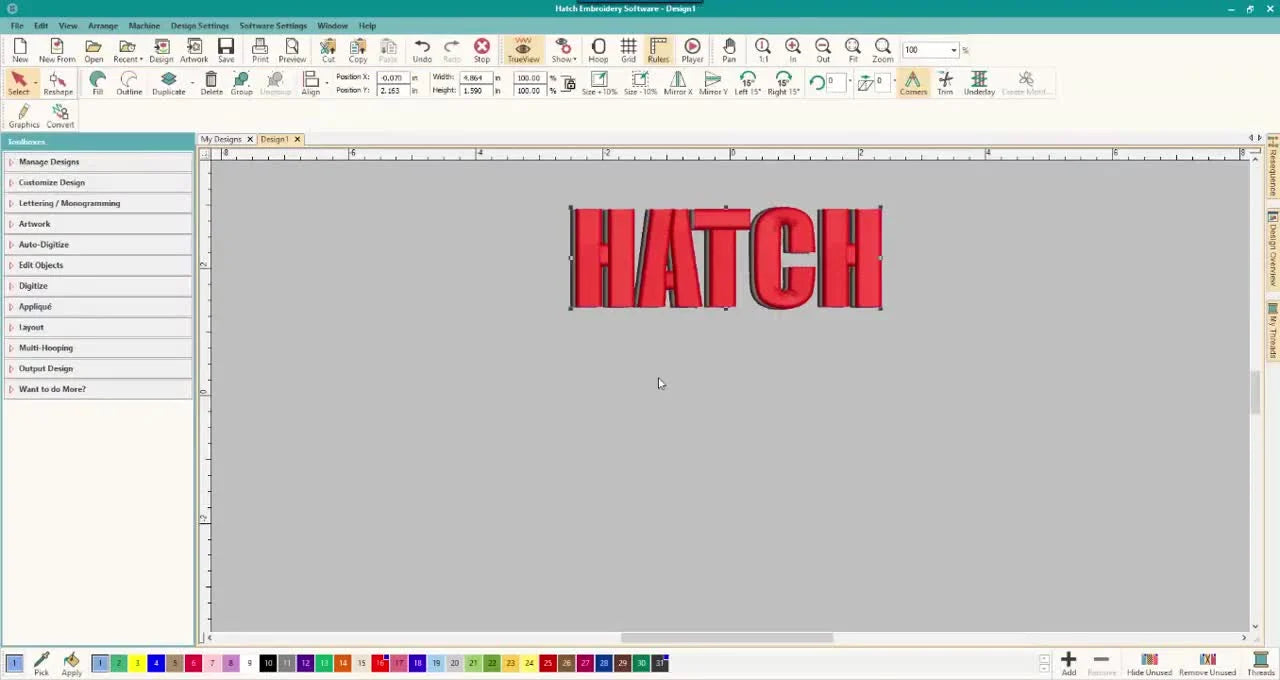
Clean 3D Drop Shadow Lettering in Hatch + CorelDRAW X6: The Trim Trick That Stops “Mushy” Fonts
The "Mushy Text" Cure: A Pro's Guide to Drop Shadow Lettering in Hatch & CorelDRAW
If you’ve ever digitized lettering that looked bold on-screen but stitched out flat, fuzzy, or "mushy," you’re not alone. We call this the "Screen vs. Reality Gap." Drop shadows are one of the fastest ways to make simple text look premium and readable—if you build the vectors cleanly before a single stitch is generated.
In this tutorial, based on insights from OML Embroidery, we break down a reliable workflow using Hatch Embroidery Software and CorelDRAW X6 integration. The goal? Create text, duplicate it as a shadow, offset it for physical depth, trim the hidden overlaps to prevent needle breaks, and convert it back to stitches.
The "Hidden" Prep Pros Do Before Touching the Text Tool
Drop shadows fail for two physical reasons: the font is too skinny (causing thread breakage), or the proper stabilization isn't planned for the density.
What we are setting up:
1. Create vector text in Corel.
2. Duplicate the object.
3. Offset the duplicate to create the shadow.
4. Critical Step: Trim overlaps to reduce density.
5. Convert to stitches.
Prep Checklist (Do this *before* typing)
• Software Check: confirm you are in Corel mode (if integrated) or have your vector program open.
• Font Strategy: Select a "Fat" font (e.g., Impact, Arial Black). Avoid serifs thinner than 1.5mm, as they won't hold a satin stitch well.
• Shadow Direction: Plan your light source (Down-Right is the industry standard).
• Consumables Check: For heavy lettering, ensure you have Cutaway Stabilizer (not Tearaway) ready to prevent the text from distorting the fabric.
Fat Fonts Are a Survival Strategy (The Physics of "Impact")
Sue types HATCH in all caps using Impact. This isn't just an aesthetic choice; it's an engineering one.
When vectors convert to embroidery:
• Thin lines (<1mm): Become run stitches (look cheap).
• Medium lines (1.5mm - 7mm): Become Satin stitches (The "Sweet Spot").
• Wide lines (>7mm): Become Tatami fills (to prevent snagging).
By scaling the text up using corner handles, you ensure the letter columns are wide enough to support clean satin stitches.
Sensory Check: When sizing your text on screen, if a letter stroke looks thinner than a standard toothpick, it will likely cause thread breaks or disappear into the fabric pile. Go bolder.
The "Copy Here" Move: Building the Shadow Layer
Speed matters. Here is the exact friction-free move Sue uses to duplicate the text:
1. Select the text.
2. Right-click, hold, and drag slightly away from the original.
3. Release the button.
4. Select Copy Here from the popup menu.
Crucial Visual Step: Immediately change the copy's color (e.g., make the shadow RED). If you leave both black, you will lose track of which layer is the shadow and which is the face.
Offsetting: The "Arm's Length" Rule
Manually drag the top layer to offset it. This determines the apparent height of the letters.
How to judge a "Good" Offset:
• Too Close: Looks like a blurry halo or printing error.
• Slide magnets apart to separate them; do not pry upward against full force.